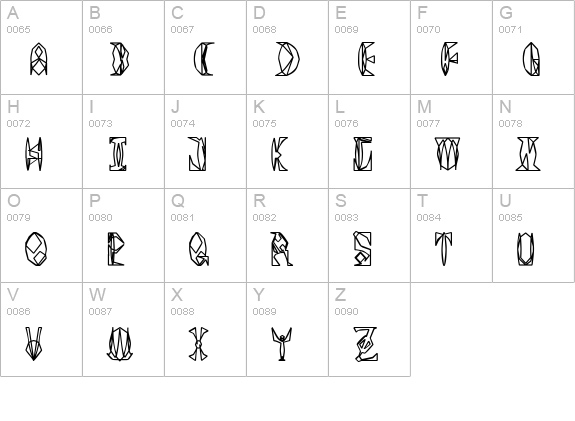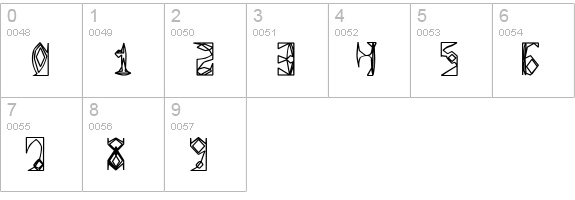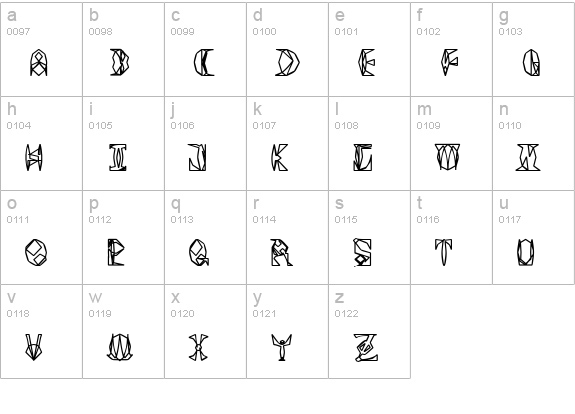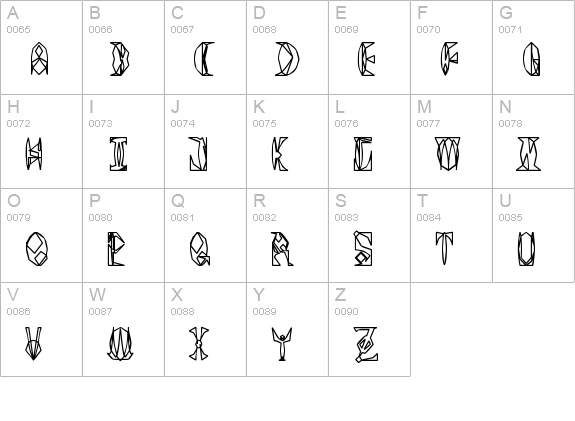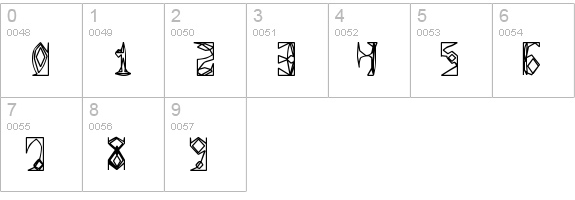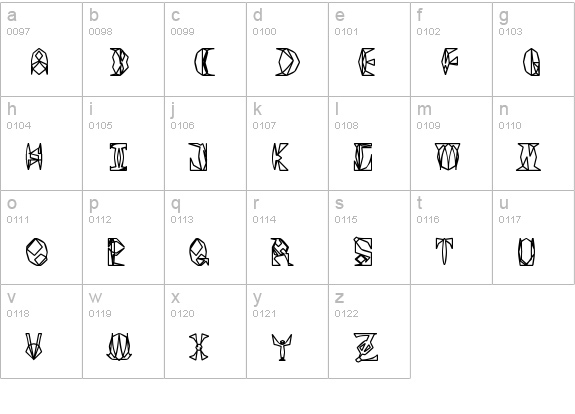
Space Gimboid Font Details
Introducing Space Gimboid font, a captivating and futuristic typeface that will transport your designs to a whole new dimension. This font combines sleek lines with a touch of playful quirkiness, making it perfect for a variety of creative projects. Space Gimboid font is a versatile choice for everything from logos and branding to posters and social media graphics. Its unique and eye-catching design will effortlessly grab attention and leave a lasting impression on your audience. But the best part? Space Gimboid font is completely free! Yes, you read that right. This remarkable typeface is freely available to download at FontsMarket.com. Whether you're a professional designer or a hobbyist, you can now access this fantastic font without any cost. With its generous availability, Space Gimboid font allows you to elevate your designs without breaking the bank. Its clean and modern aesthetic, combined with a touch of space-age flair, will add a sense of sophistication to any project. The carefully crafted letterforms of Space Gimboid font ensure legibility even at small sizes, making it suitable for both print and digital mediums. Its bold and confident presence will captivate your audience and give your designs a distinctive edge. So, why settle for ordinary when you can embrace the extraordinary? Download Space Gimboid font for free at FontsMarket.com and unlock a universe of creative possibilities. Let your imagination soar and create designs that are truly out of this world with this one-of-a-kind typeface.